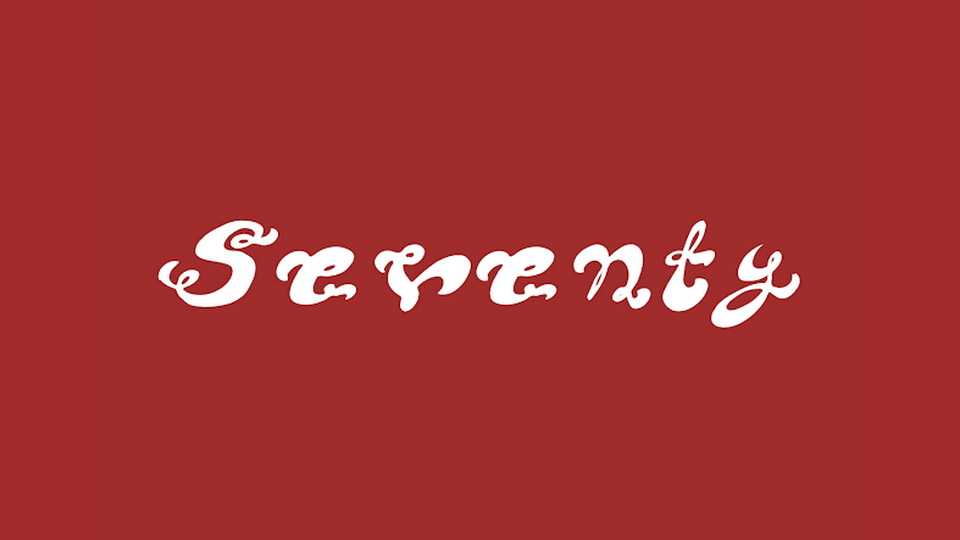
PVF Sevenity Font › Fontesk – Fonte Grátis
Download PVF Seventy font, a lovely decorative handwritten typeface right from the 70’s with a calligraphic look. PVF Seventy font is perfect for crafts, cards, quotes and more.
Designer: Petros Vasiadis